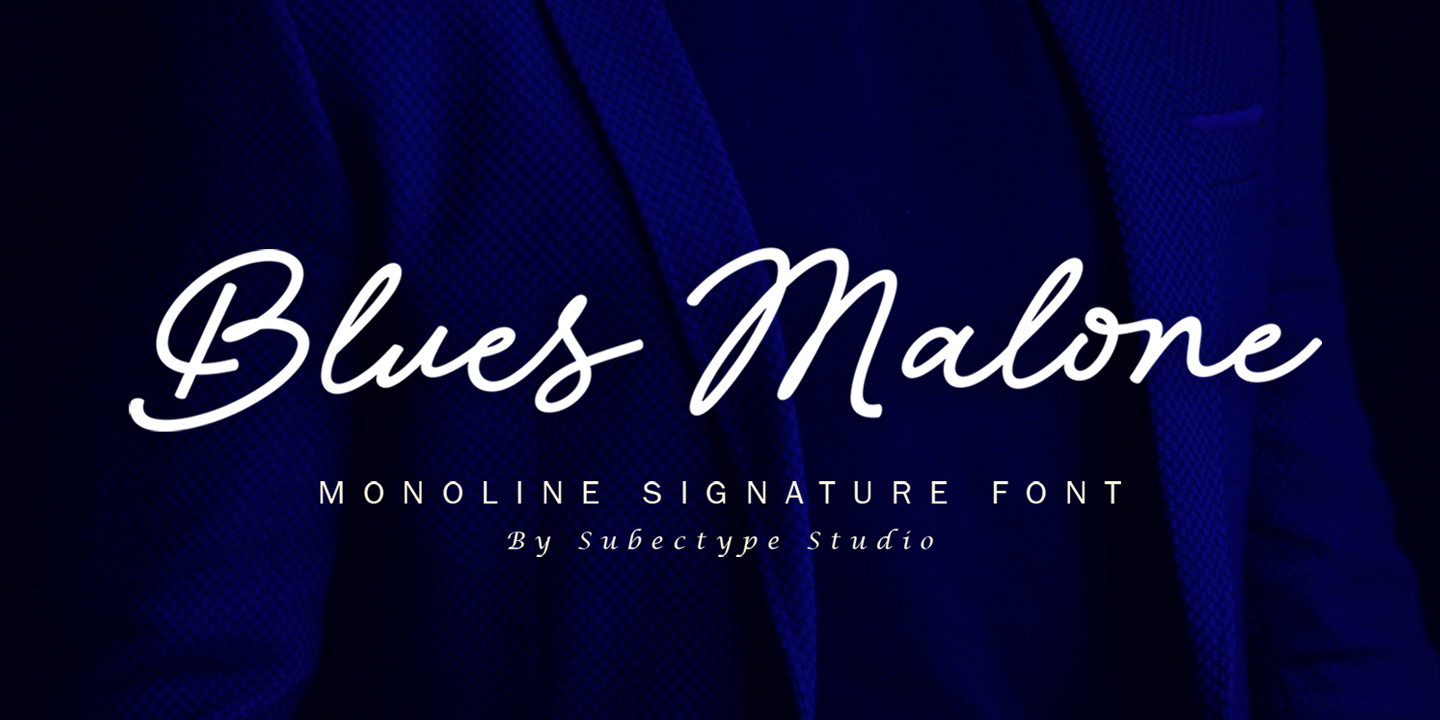
Blues Malone Font Free Download is a bold and stylish typeface with a vintage flair that brings energy and character to any design. With its strong lines, distinctive curves, and retro-inspired charm, this font is perfect for branding, posters, album covers, social media graphics, and any creative project that seeks a powerful, nostalgic look.
The unique letterforms of Blues Malone offer excellent readability while adding a playful and expressive style. Whether you're designing for music events, retro-themed projects, or vibrant branding, Blues Malone Font Free Download brings a memorable and dynamic presence to your designs.